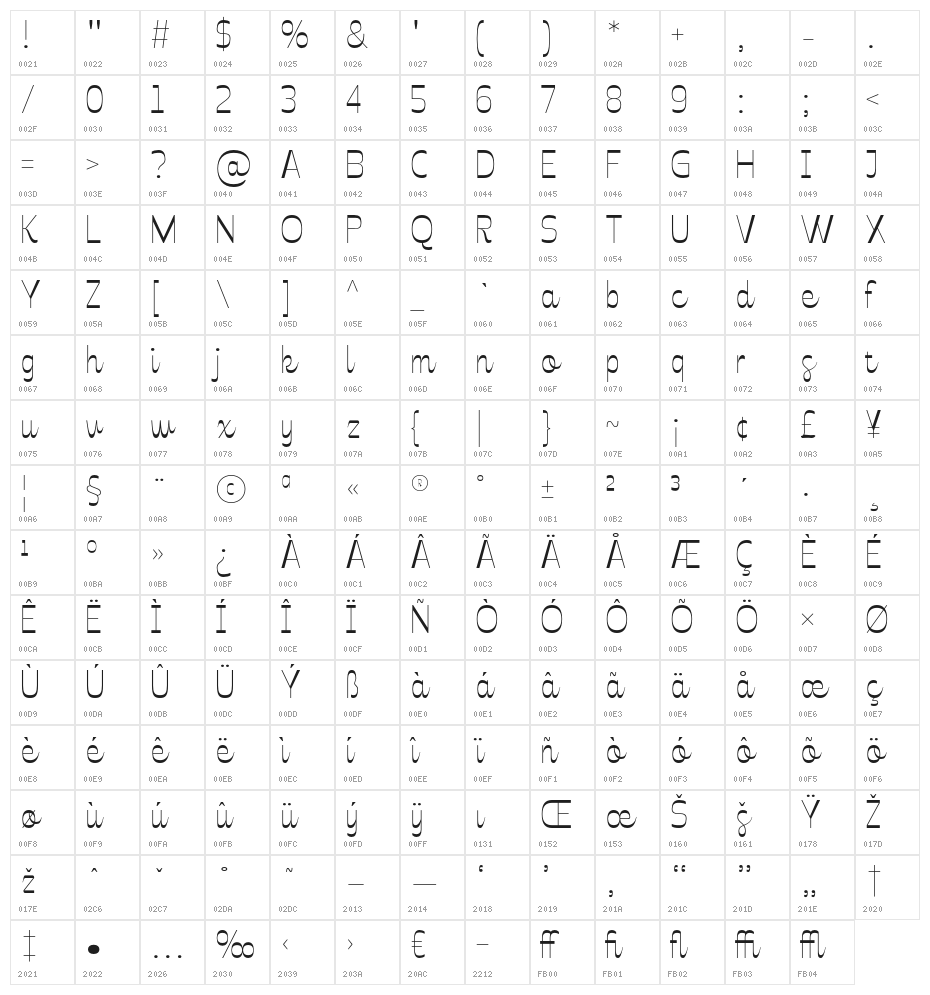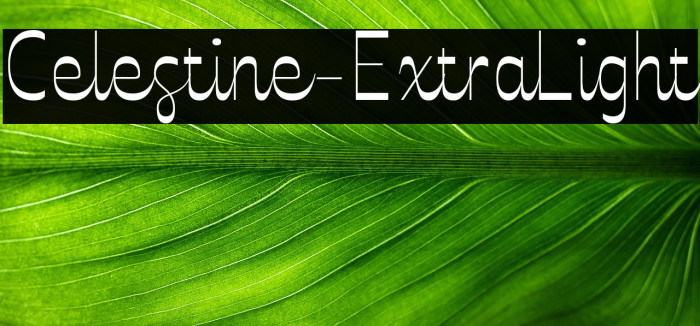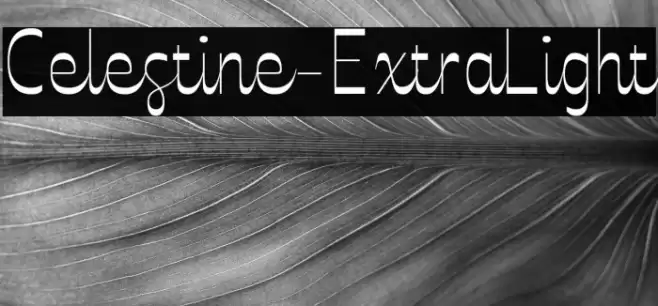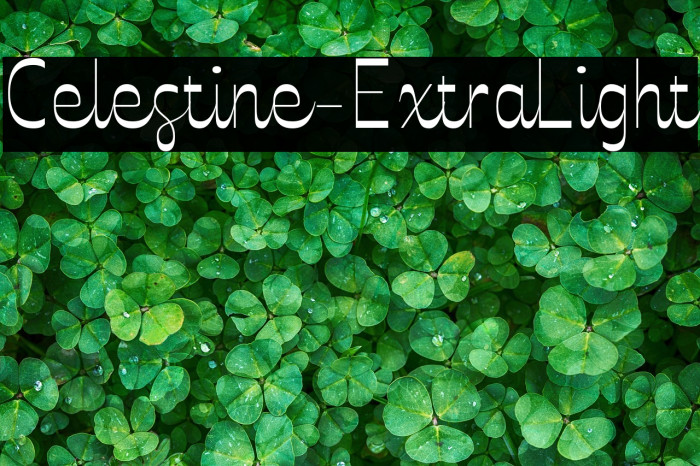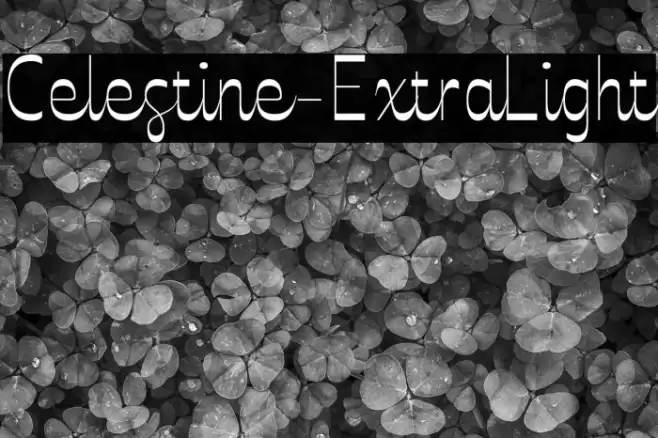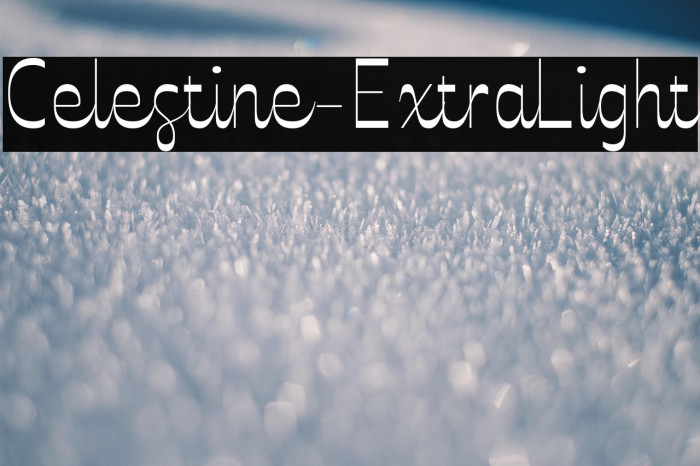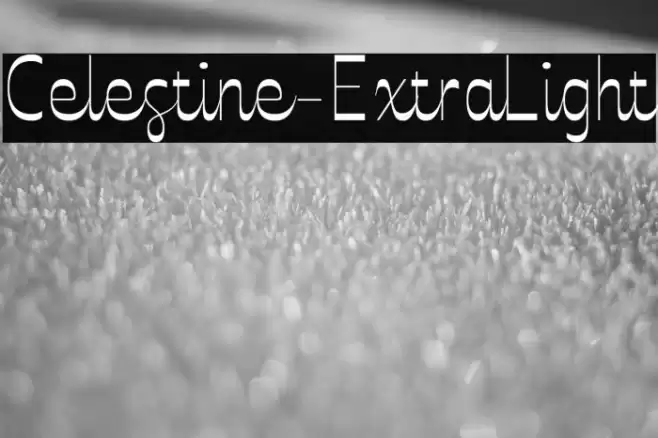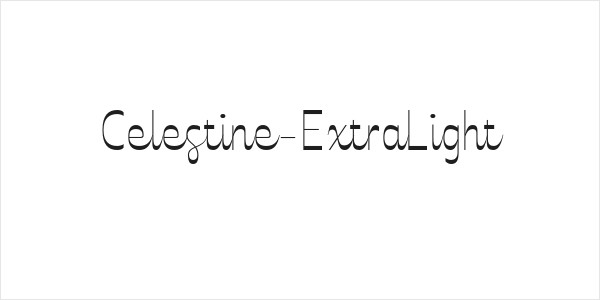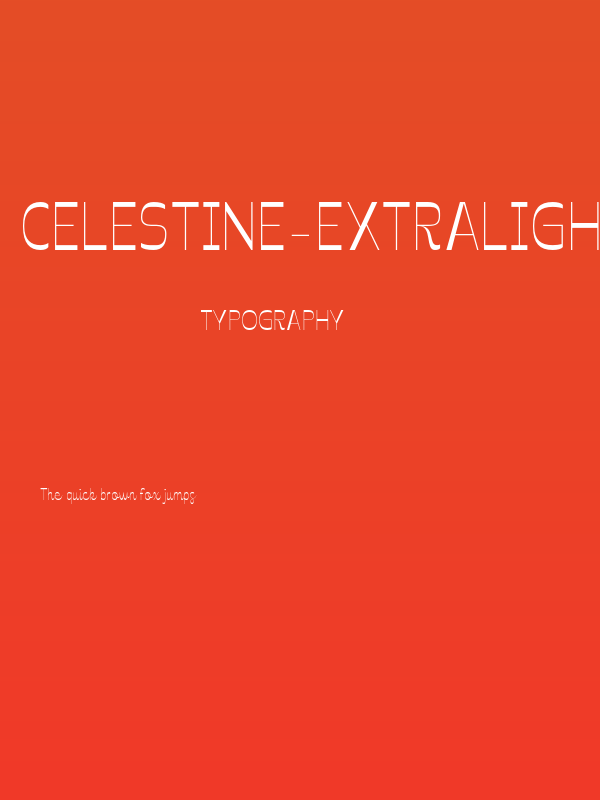
Celestine-ExtraLight Font
Celestine-ExtraLight Description
This font presents a sleek and modern aesthetic with its extra light weight, offering a clean and minimalistic appearance. The characters are elegantly crafted with a consistent stroke width, providing a harmonious and balanced look. The uppercase letters are bold and assertive, while the lowercase letters introduce a subtle curvature that adds a touch of sophistication. The numerals are clear and legible, maintaining the font's overall streamlined design. Special characters are thoughtfully integrated, ensuring versatility across various applications. This font's simplicity and elegance make it suitable for contemporary design projects.
| Proposed Projects | Ideal for modern branding, minimalist posters, elegant invitations, and digital interfaces. |